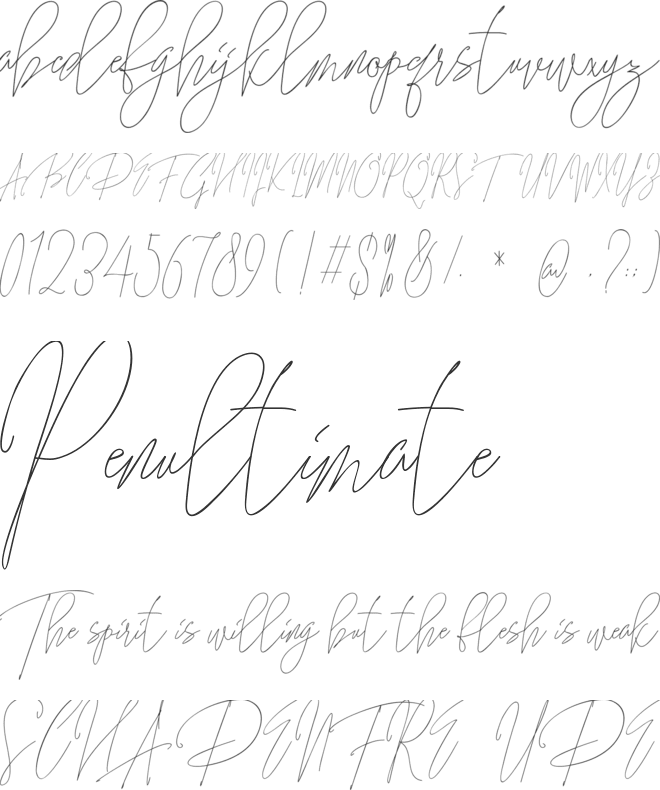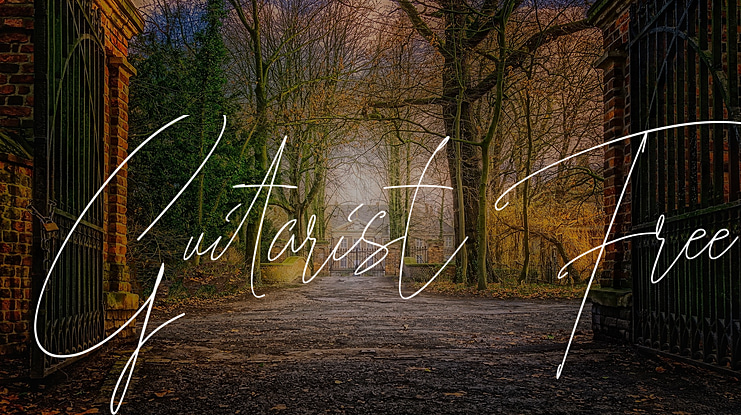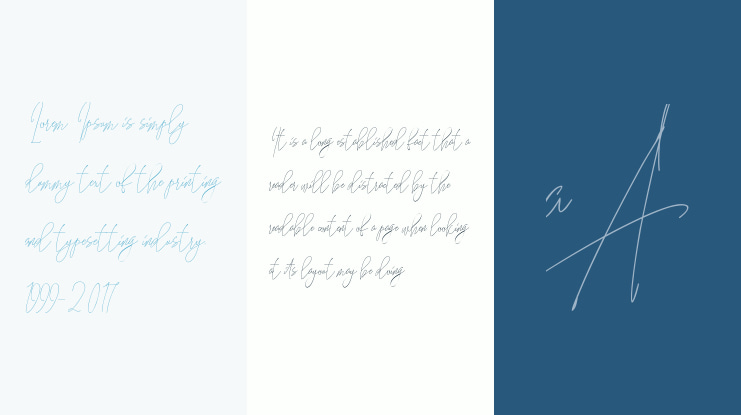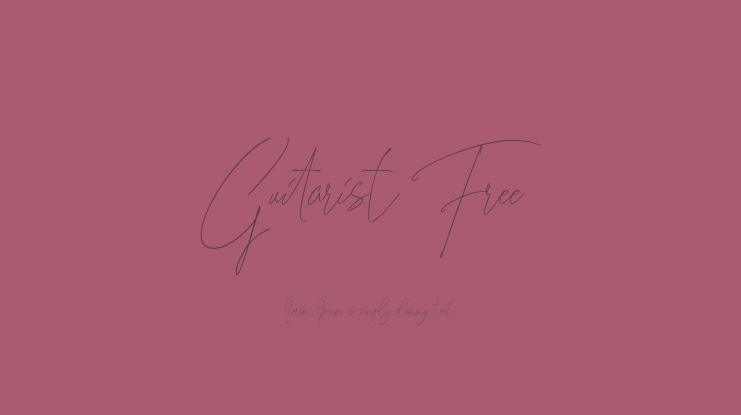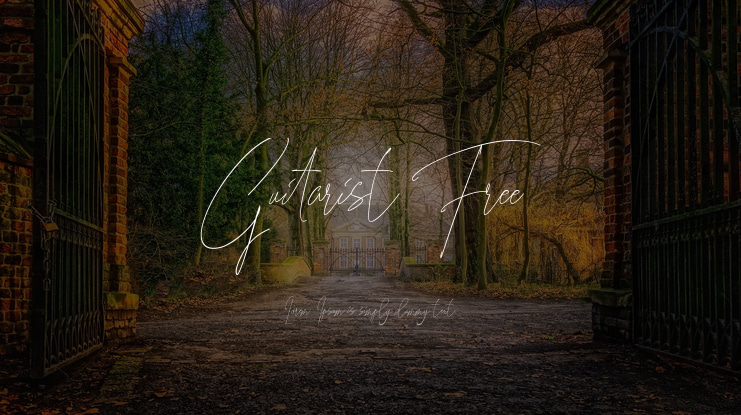
Guitarist Free Font
Guitarist is a script font that has the characteristic handwriting, it is very suitable to make certain label and event business and you could be using for a unique piece. Visit here to get full version